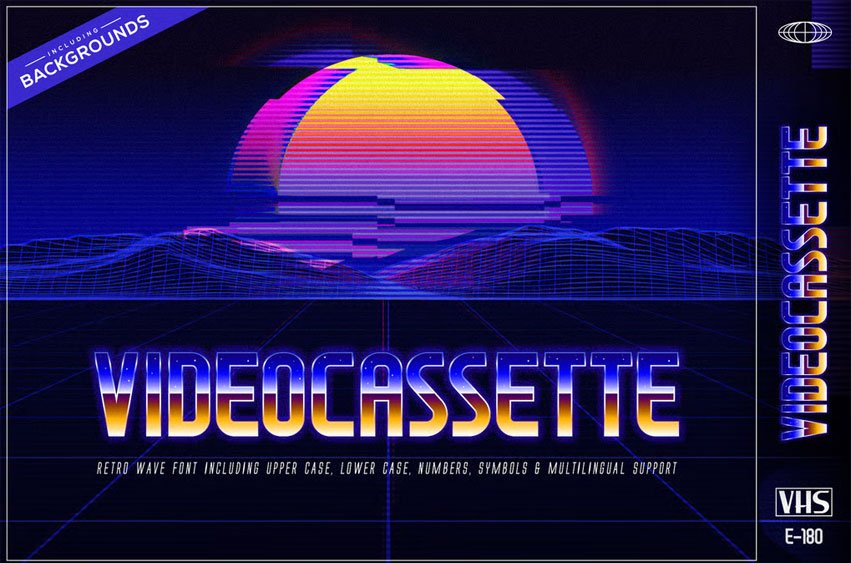
Videocassette Font Remember the time when you had VHS tapes with your favorite movies on your shelf, and CDs and Laser Discs were on top of technology progress?
This pack contains Videocassette trendy vapor wave, synth wave, retro wave styled Color OpenType Font in .OTF file format with upper case, lower case, symbols, numbers and multilingual symbols (Adobe Illustrator / Photoshop 2018+).